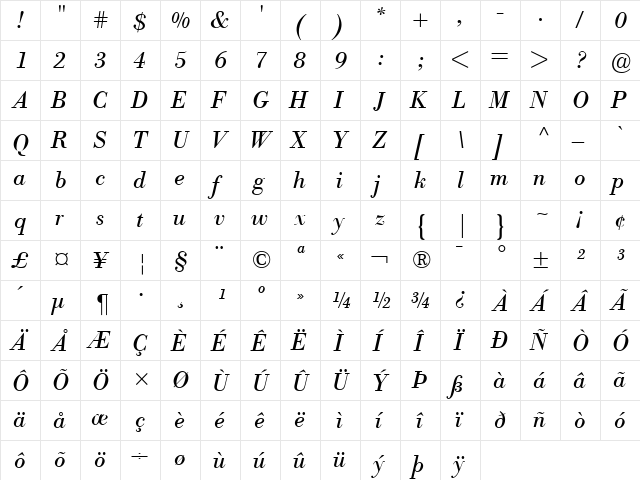
Bodoni BE Italic
Design Context for Bodoni BE Typeface
Bodoni BE is a composed and adaptable typeface that performs quietly and consistently across a wide range of design contexts. The dynamic lean of this cut emphasises speed and emphasis in any layout.
Pro Tip: Use Bodoni BE for emphasis, pull quotes, and subheadings where its slanted energy can add rhythm to the layout.